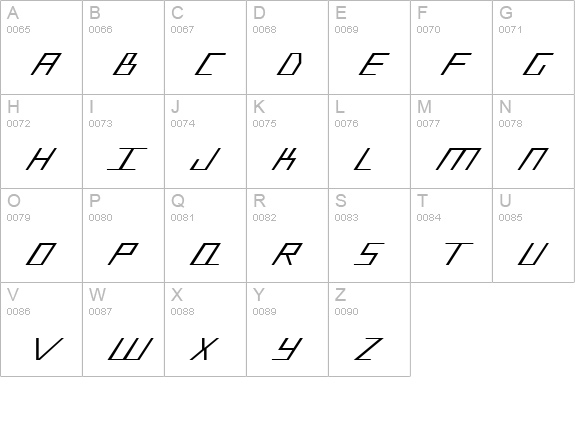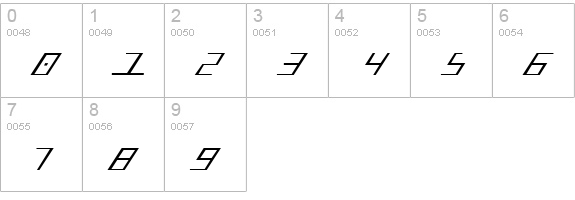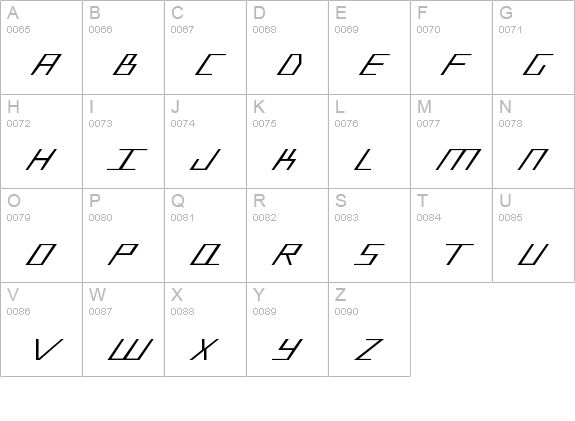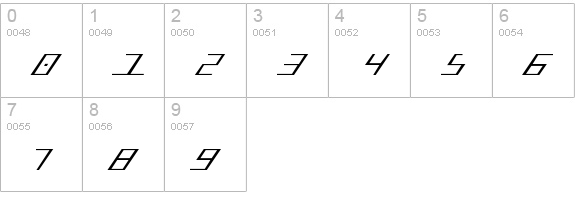
Blue July Expanded Font Details
Blue July Expanded is a distinctive, extended-width variant in the Blue typeface family \xE2\x80\x94 well suited to design and typography projects.
Blue July Expanded is a stunning, modern font that exudes sophistication and elegance. With its sleek lines and contemporary design, this typeface is perfect for adding a touch of refinement to any project. The expanded version of Blue July offers even more versatility and style, making it ideal for a wide range of design applications. What's even better is that Blue July Expanded is available for free download at FontsMarket.com. This means you can easily access this beautiful font and incorporate it into your designs without any cost. Don't miss out on the opportunity to enhance your projects with the elegance and charm of Blue July Expanded. Download it today and elevate your design work to new heights.